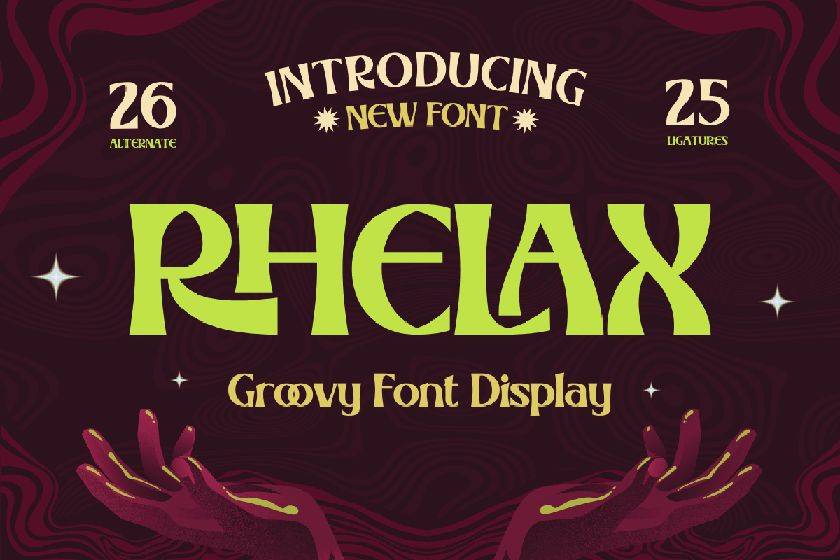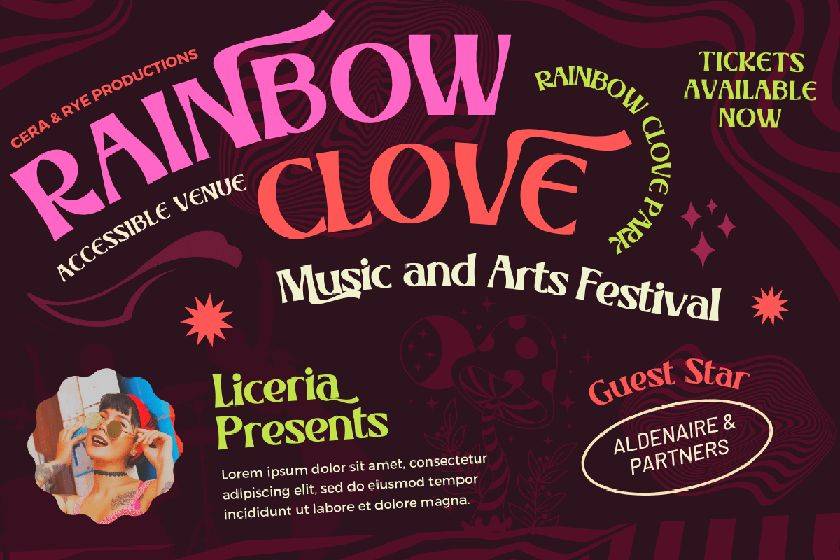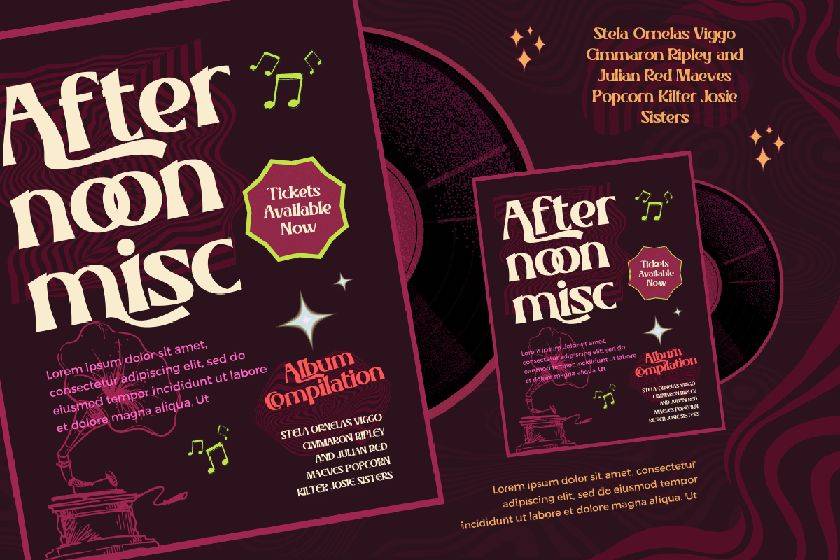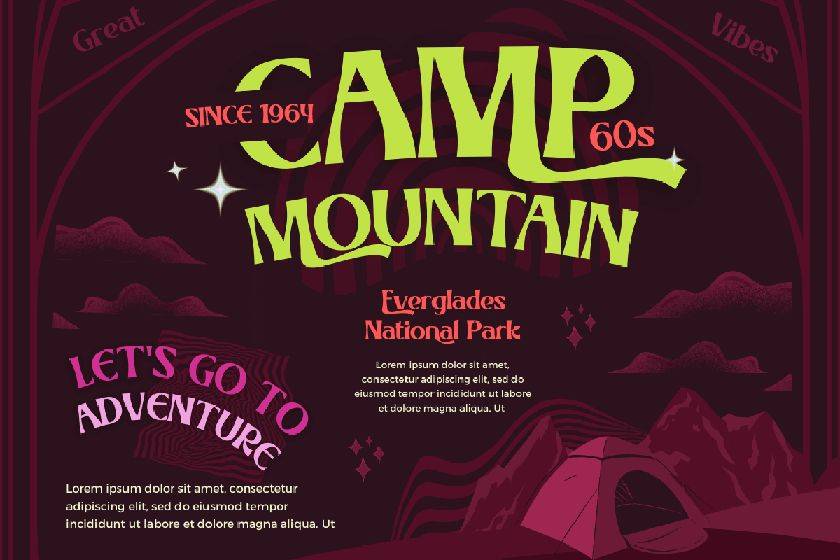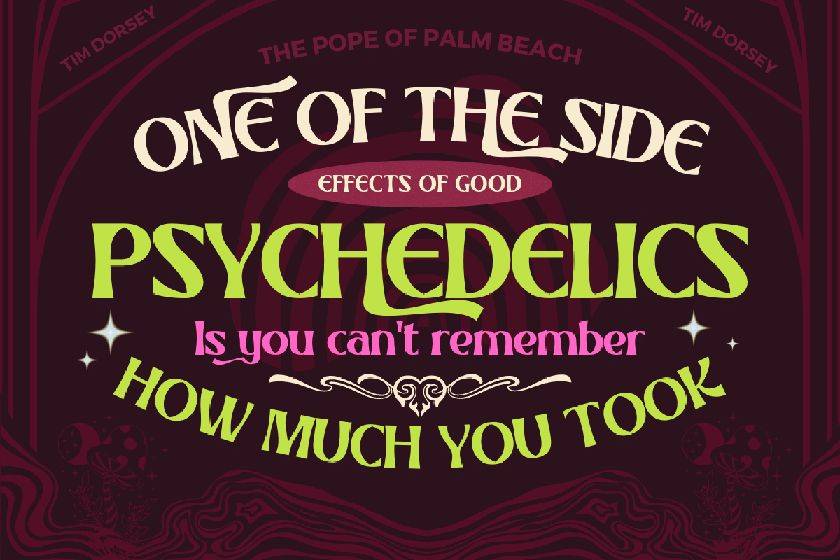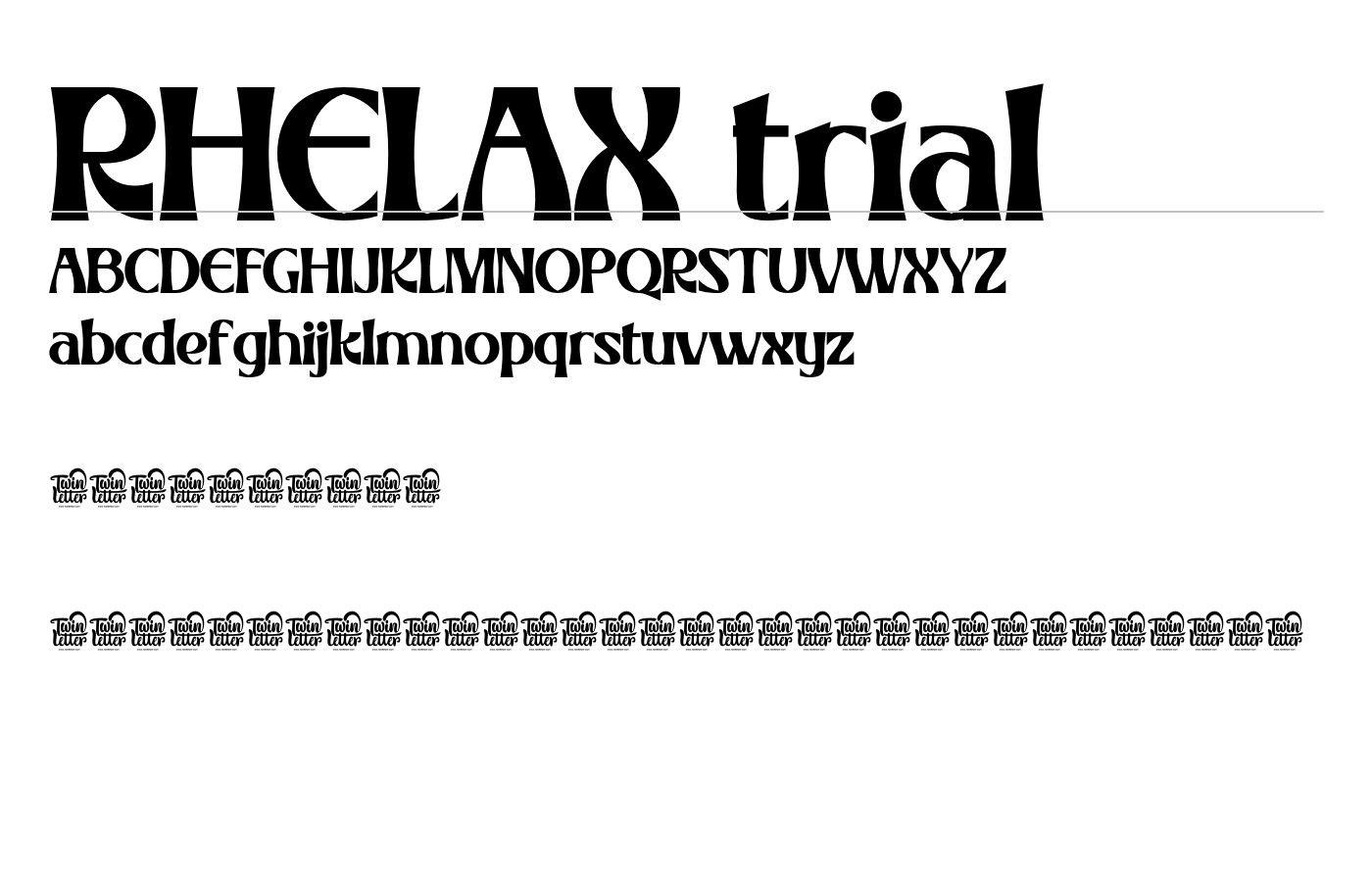
Rhelax is a distinctive serif font with a playful yet elegant character, featuring high contrast strokes and sharp, bracketed serifs that give it a modern, artistic flair. Its unique letterforms, such as the unconventional shapes of the uppercase A, R, and Q, and the lively, slightly condensed proportions make it ideal for creative headlines, logos, and branding that seek to combine sophistication with a touch of individuality. This font works well in fashion, editorial, and packaging contexts where a bold, stylish statement is desired.
Rhelax Font
About Rhelax Font